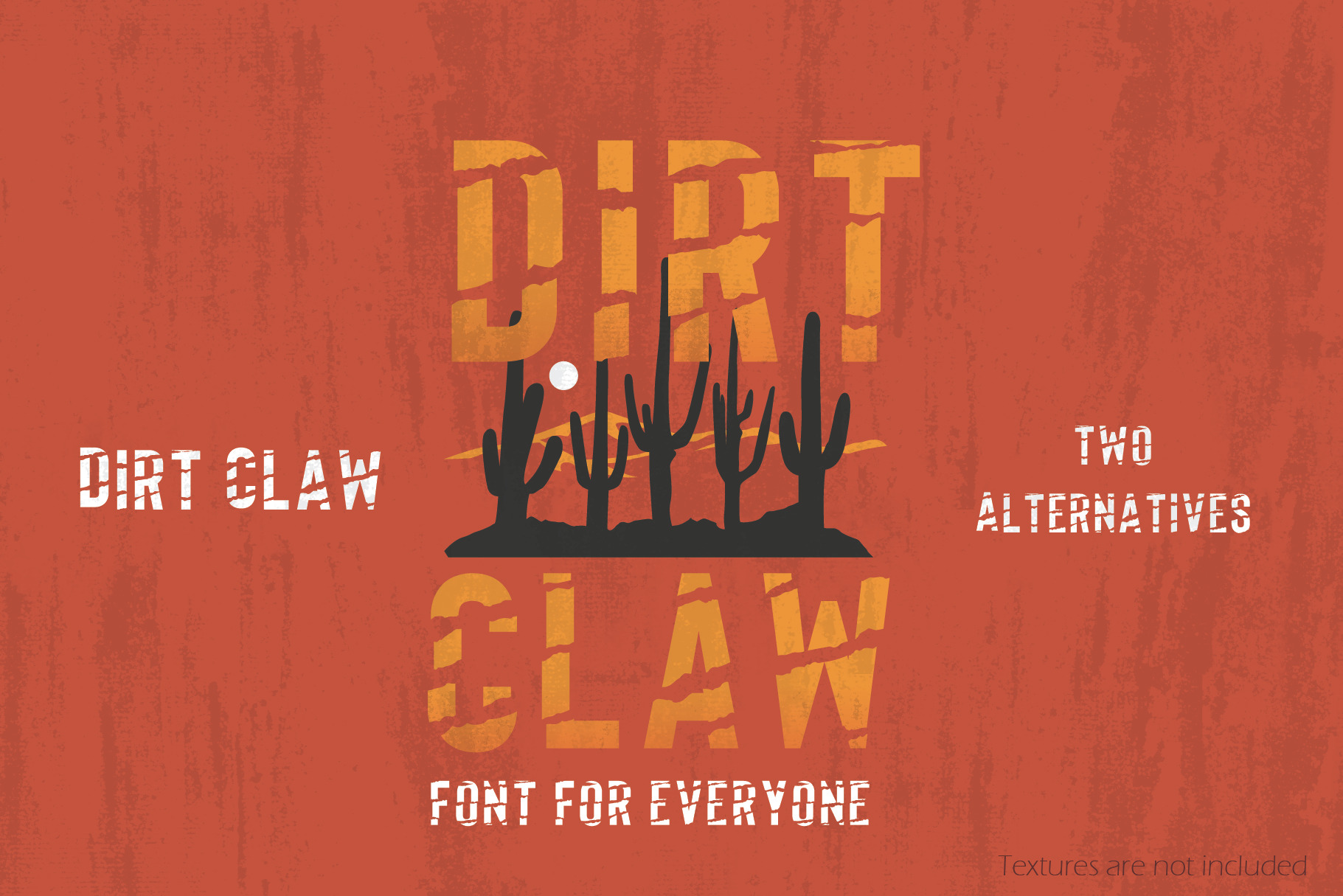
Dirt Claw Display Font
A stylized display font which is in itself so interesting, it can make any old or vintage style design or any texture base design pop. Scratched font which looks awesome in itself very interesting to look at. filled with two alternatives.